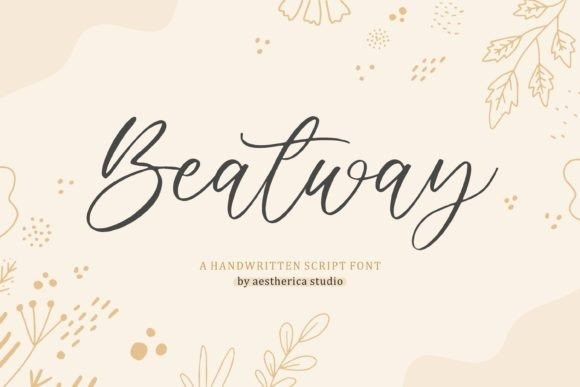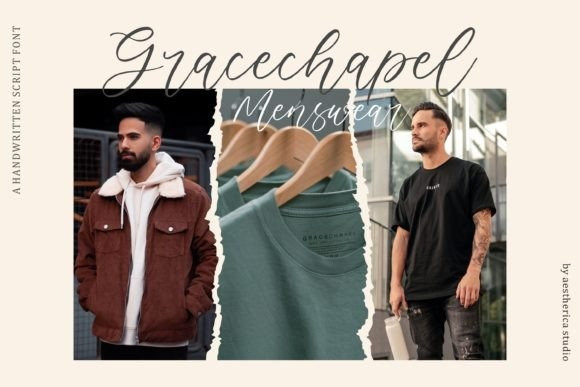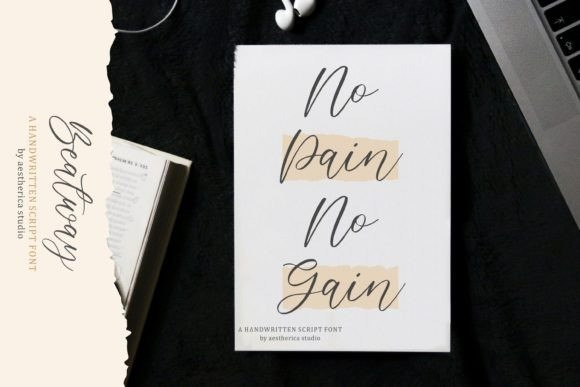
Beatway Font
Beatway is a handwritten script font with a clear style and dramatic movement. This font is great for your next creative project.
Beatway is perfect for branding projects, logos, wedding designs, social media posts, advertisements, product packaging, product designs, label, photography, watermark, invitation, stationery, and any projects that need handwriting taste.